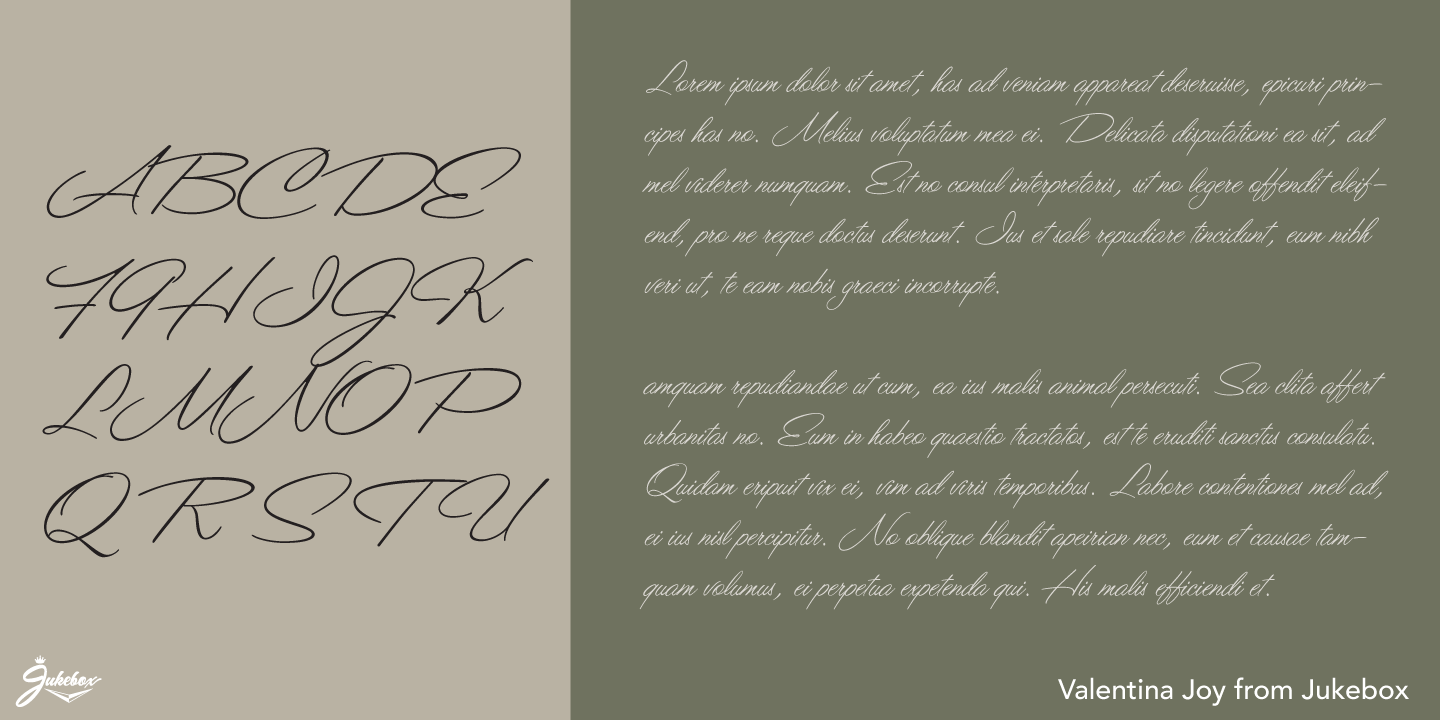
Where to Use Valentina Joy JF Font?
Perfect for wedding invitations, feminine branding, social media quotes, product packaging, and creative logos. Its flowing script style brings warmth to greeting cards, blog headers, and boutique business branding.
Why Is Valentina Joy JF Font Exciting?
This font captures joyful energy with its bouncy baseline and delicate swashes, making every word feel celebratory. The organic hand-drawn quality adds authenticity to romantic, vintage, or modern-luxe designs.
Valentina Joy JF Font Family
Includes regular and bold weights with stylistic alternates for "a", "e", and "g", plus 80+ ligatures for ultra-natural letter connections.